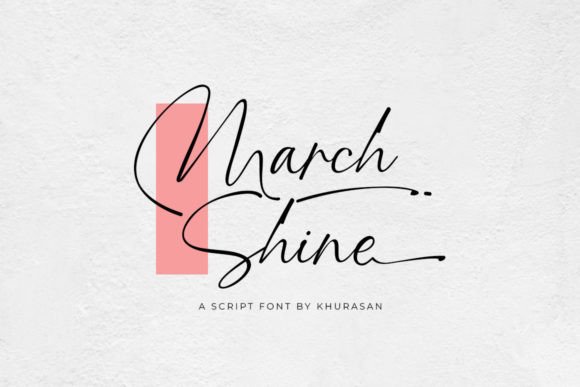
Unleash your creativity with the captivating March Shine Font, a modern calligraphy masterpiece that dances across your digital canvas with grace and elegance. Its expressive strokes bring a touch of sophistication to any project, whether it's a heartfelt quote that speaks to your soul, a captivating poster that commands attention, or a stunning book cover that promises an irresistible tale.
Immerse yourself in the beauty of March Shine, a script font that embodies the essence of art and emotion. Each carefully crafted character flows seamlessly into the next, creating a visual symphony that dances before your eyes. Its enchanting curves and delicate flourishes add a personal touch to your designs, making them stand out from the ordinary and leaving a lasting impression.
With March Shine, transform your words into works of art. Whether you're a seasoned designer seeking inspiration or a budding artist exploring new mediums, this font will elevate your creations to new heights. Its versatility knows no bounds, making it the perfect choice for a wide range of projects.
Unlock the endless possibilities of March Shine and let your imagination soar. This font is your passport to a world of creative expression, where you can weave your stories, share your ideas, and connect with others through the power of beautiful typography.
Embrace the allure of March Shine, a font that will captivate and enchant your audience. Experience the joy of creating stunning designs that resonate with your soul and leave an unforgettable mark on the world. Download March Shine today and embark on a journey of artistic discovery and self-expression.